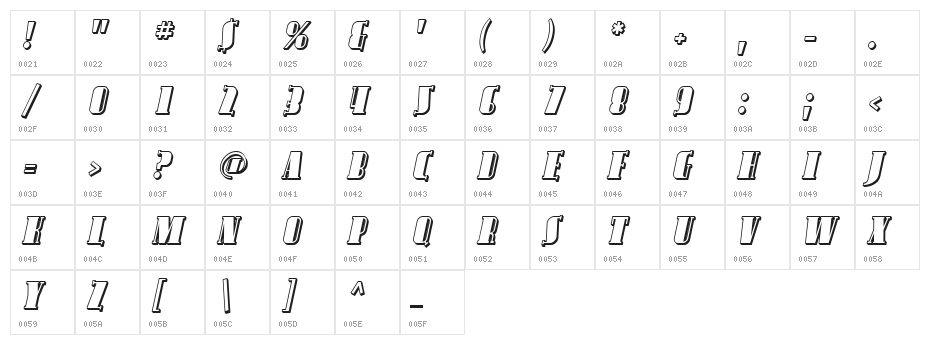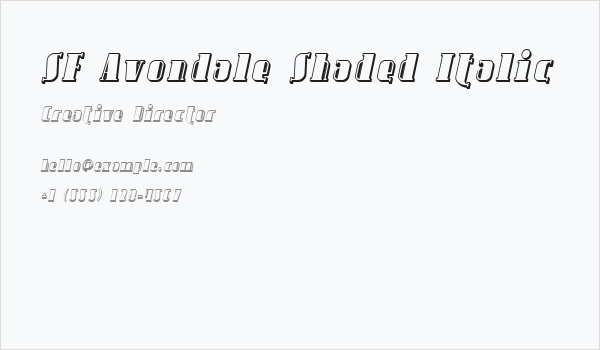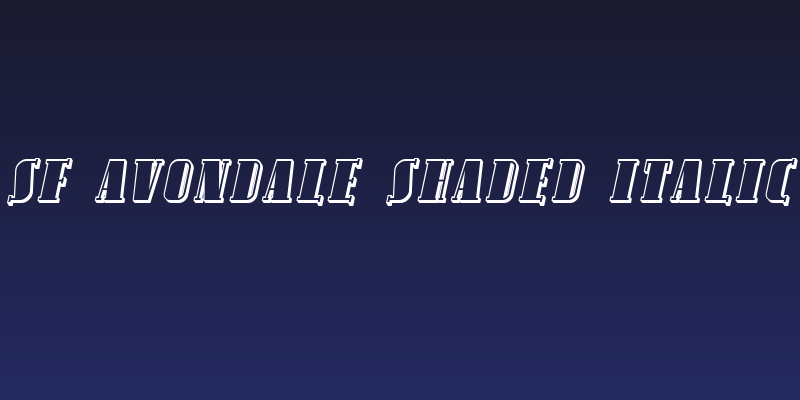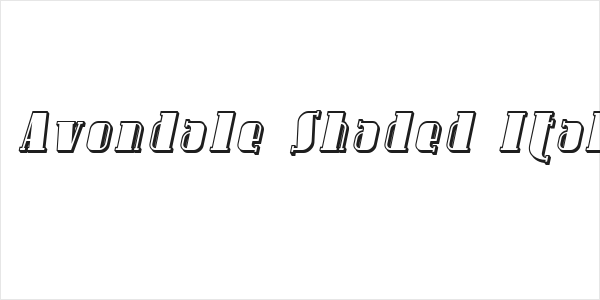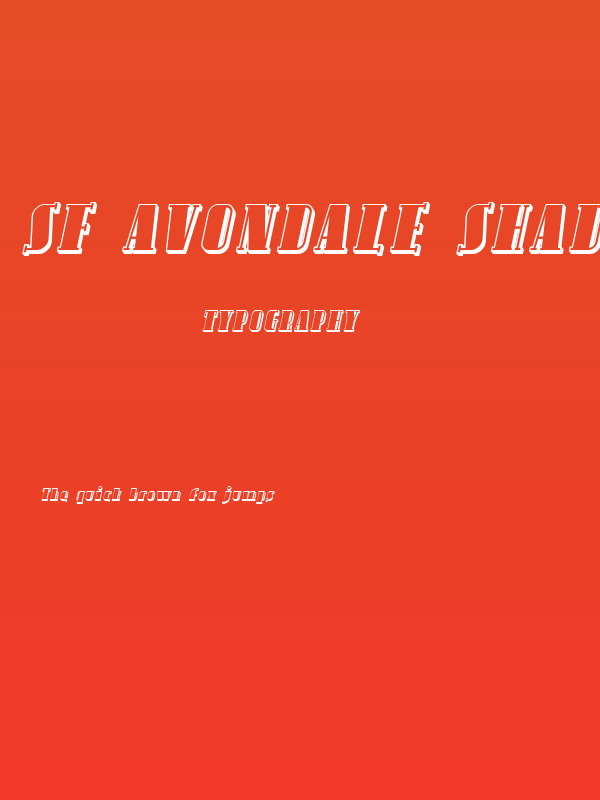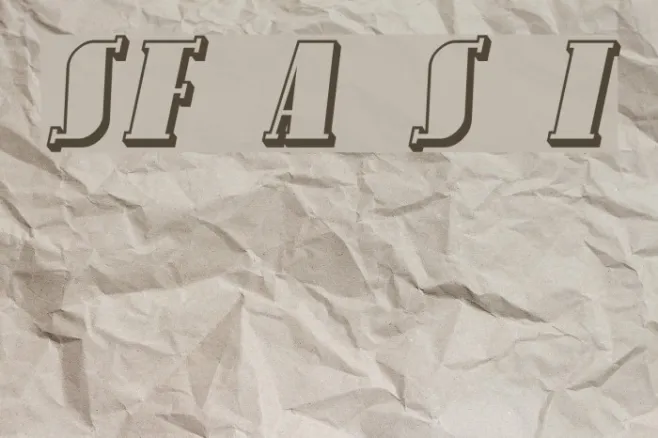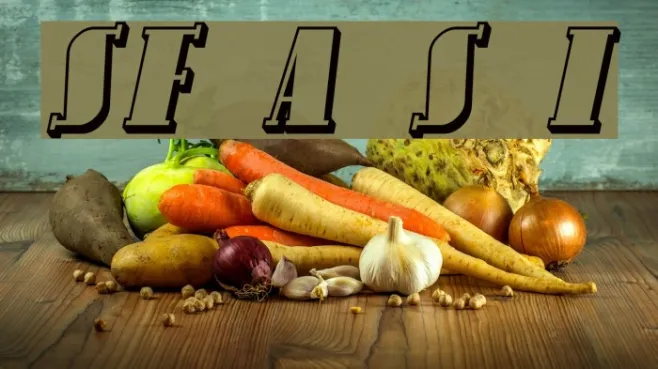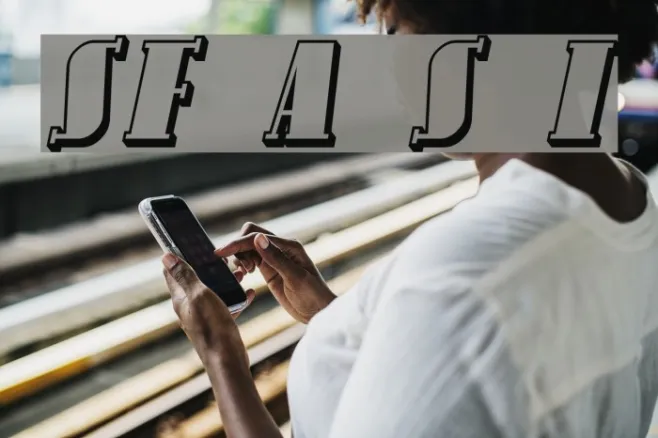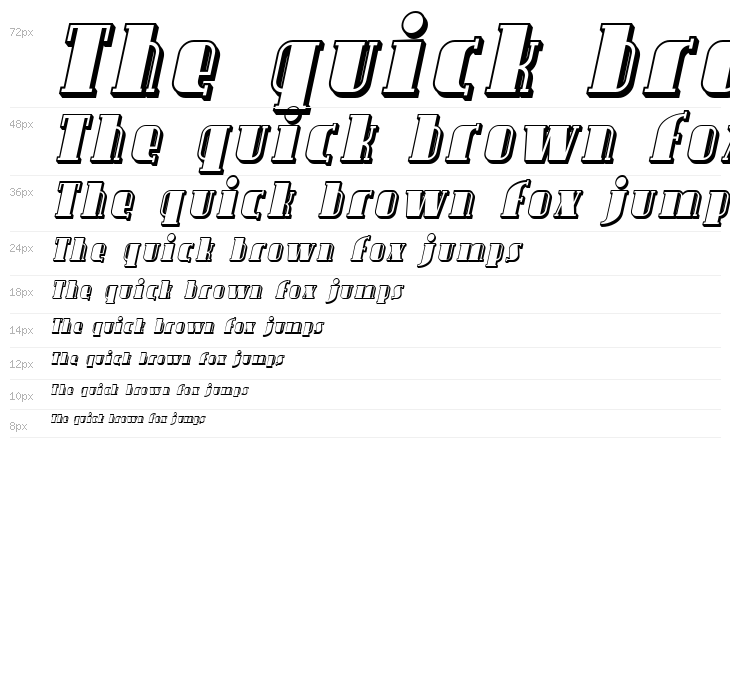
SF Avondale Shaded Italic Font
SF Avondale Shaded Italic Description
This font features a bold, italicized style with a distinct shaded effect that gives each character a three-dimensional appearance. The uppercase and lowercase letters maintain a consistent slant, enhancing the italicized look. The shading adds depth and a sense of movement, making it ideal for eye-catching designs. The numerals and special characters are crafted with the same attention to detail, ensuring a cohesive look across all text elements. The font's unique style makes it suitable for projects that require a dynamic and engaging visual impact.
| Proposed Projects | Ideal for posters, logos, and headlines that need a striking and dynamic appearance. |